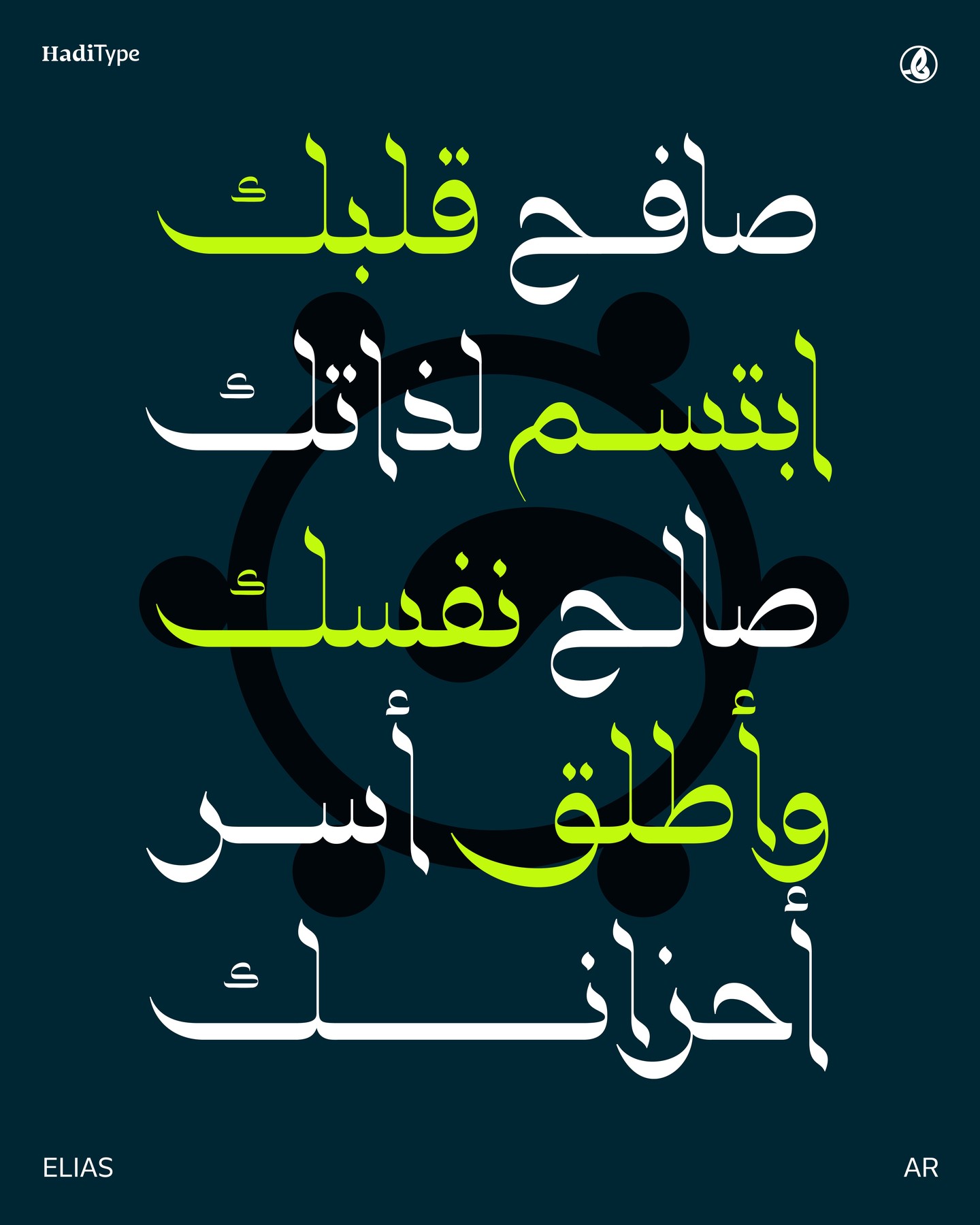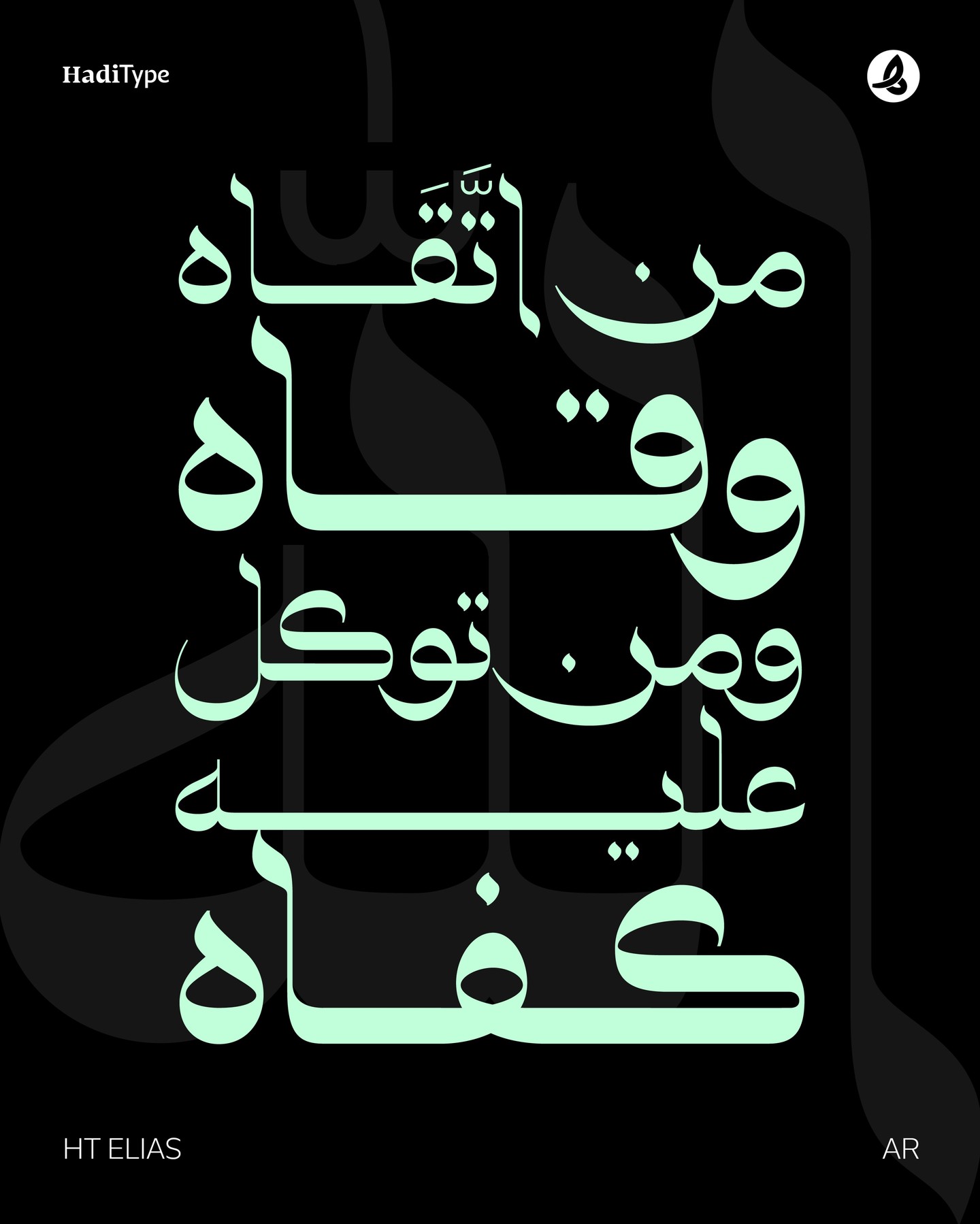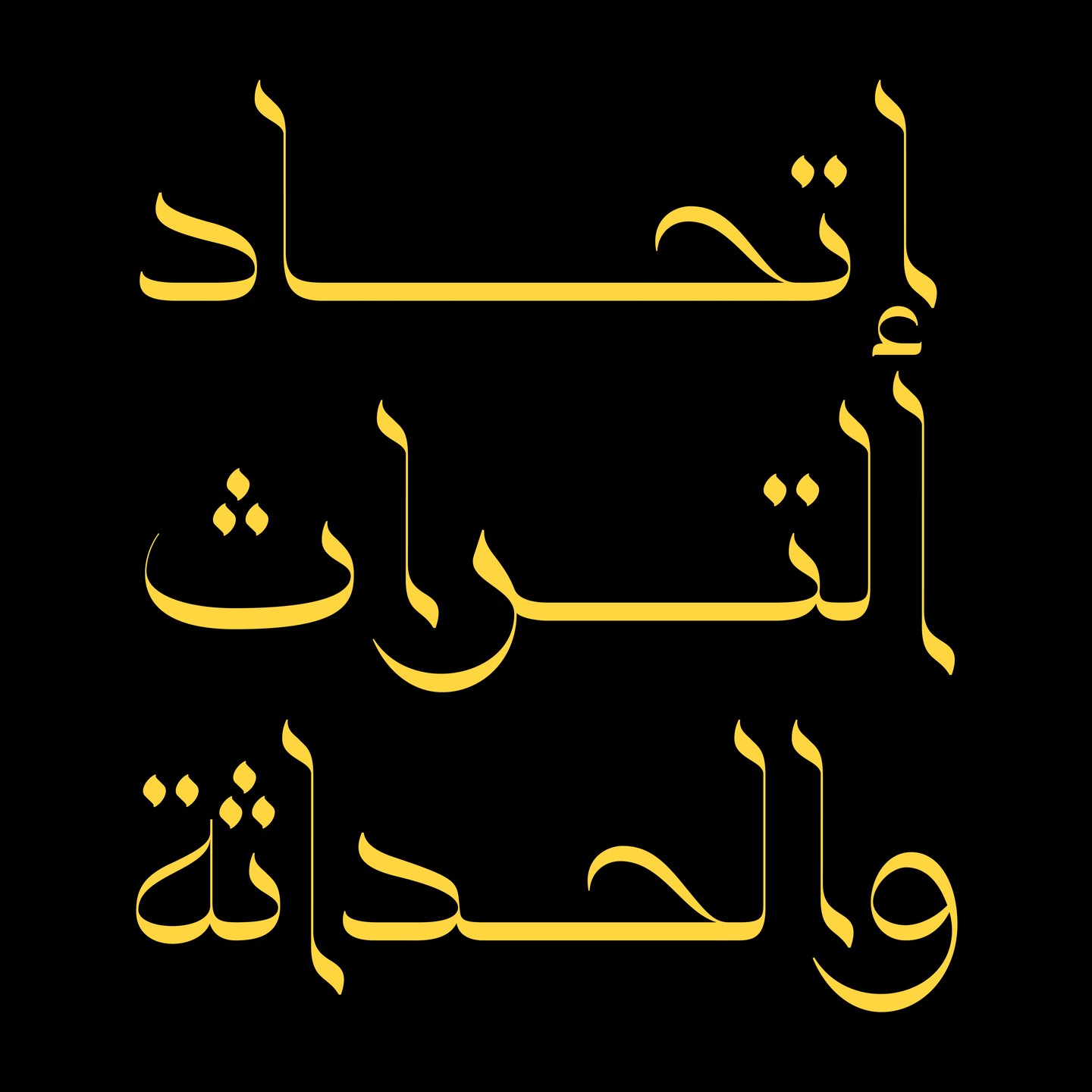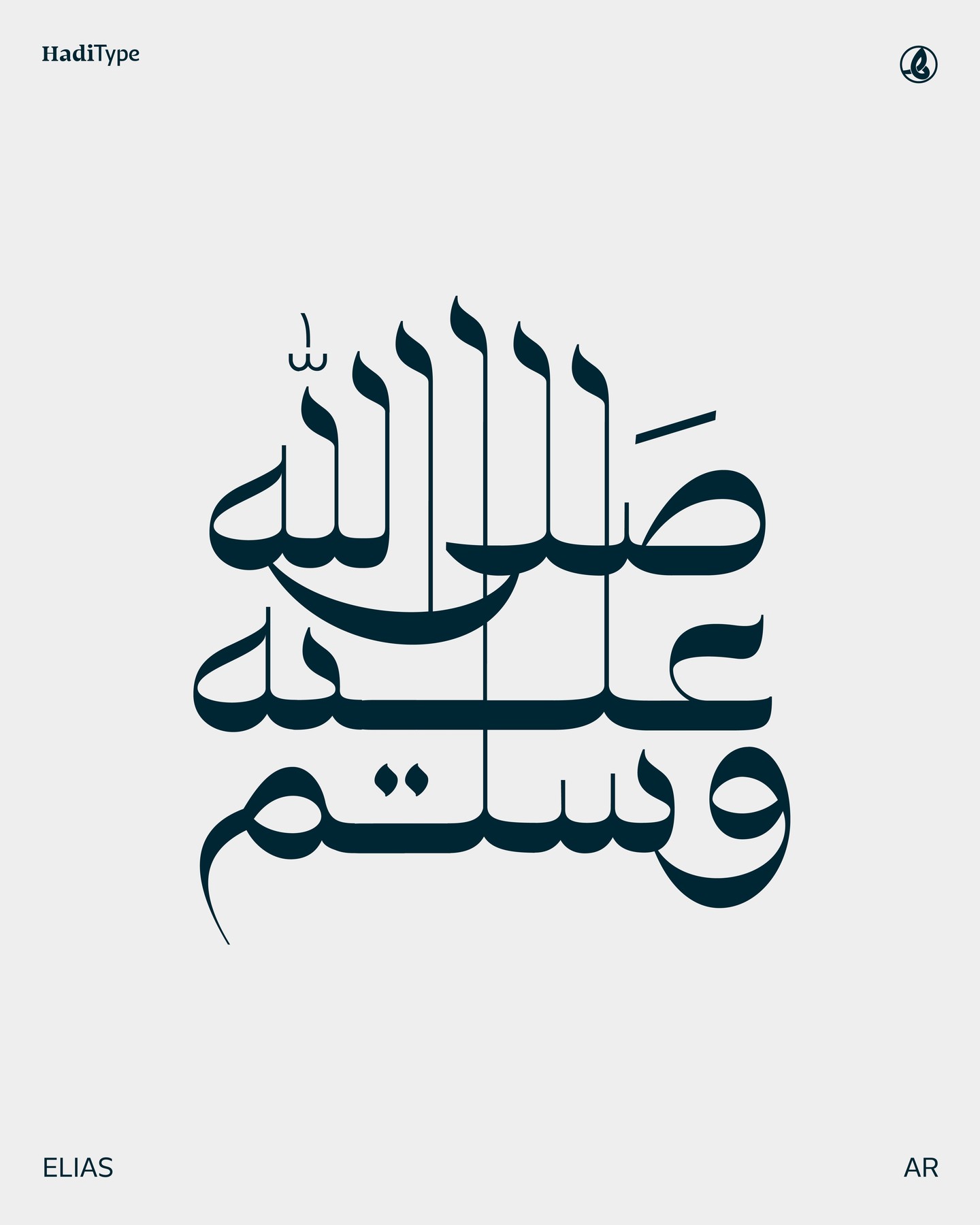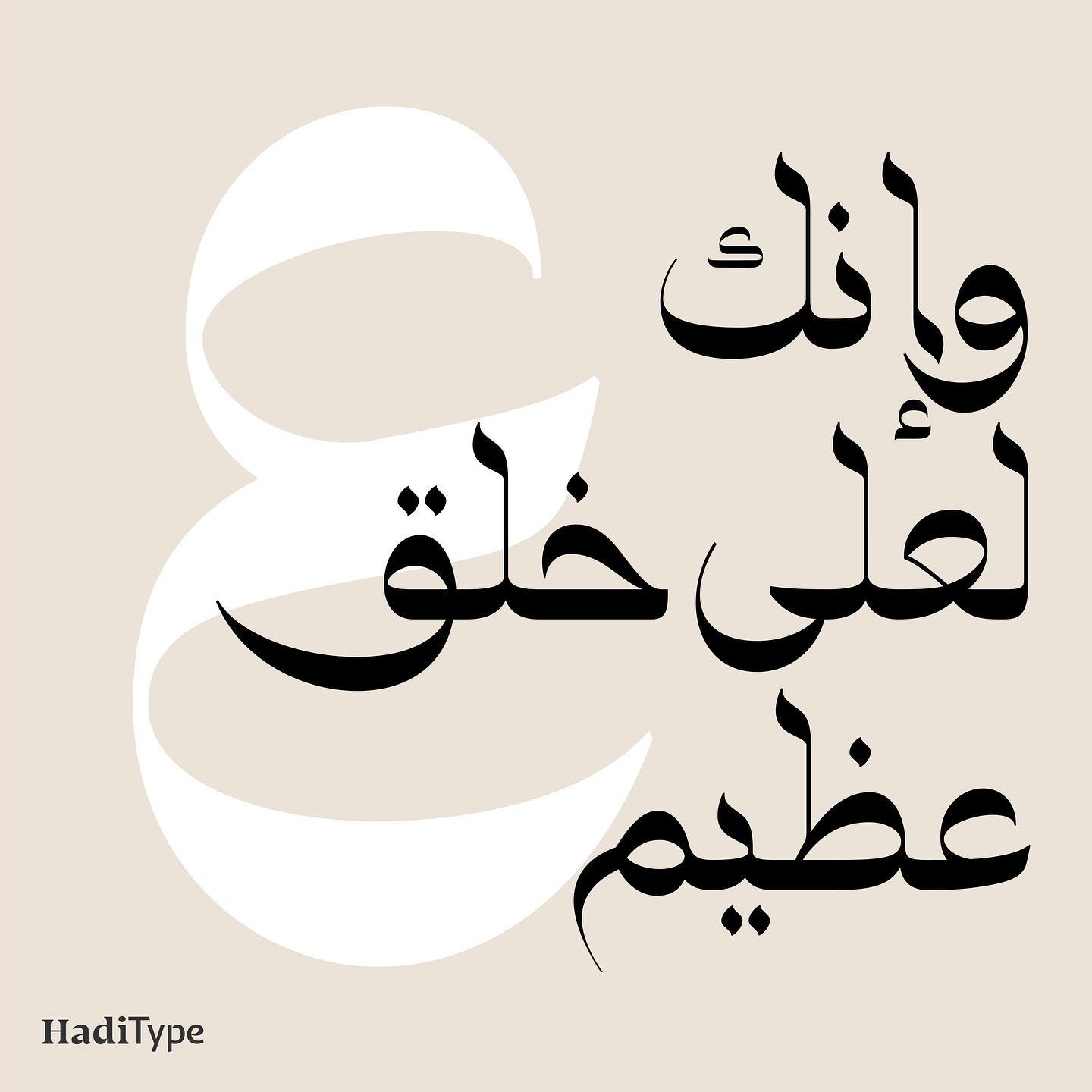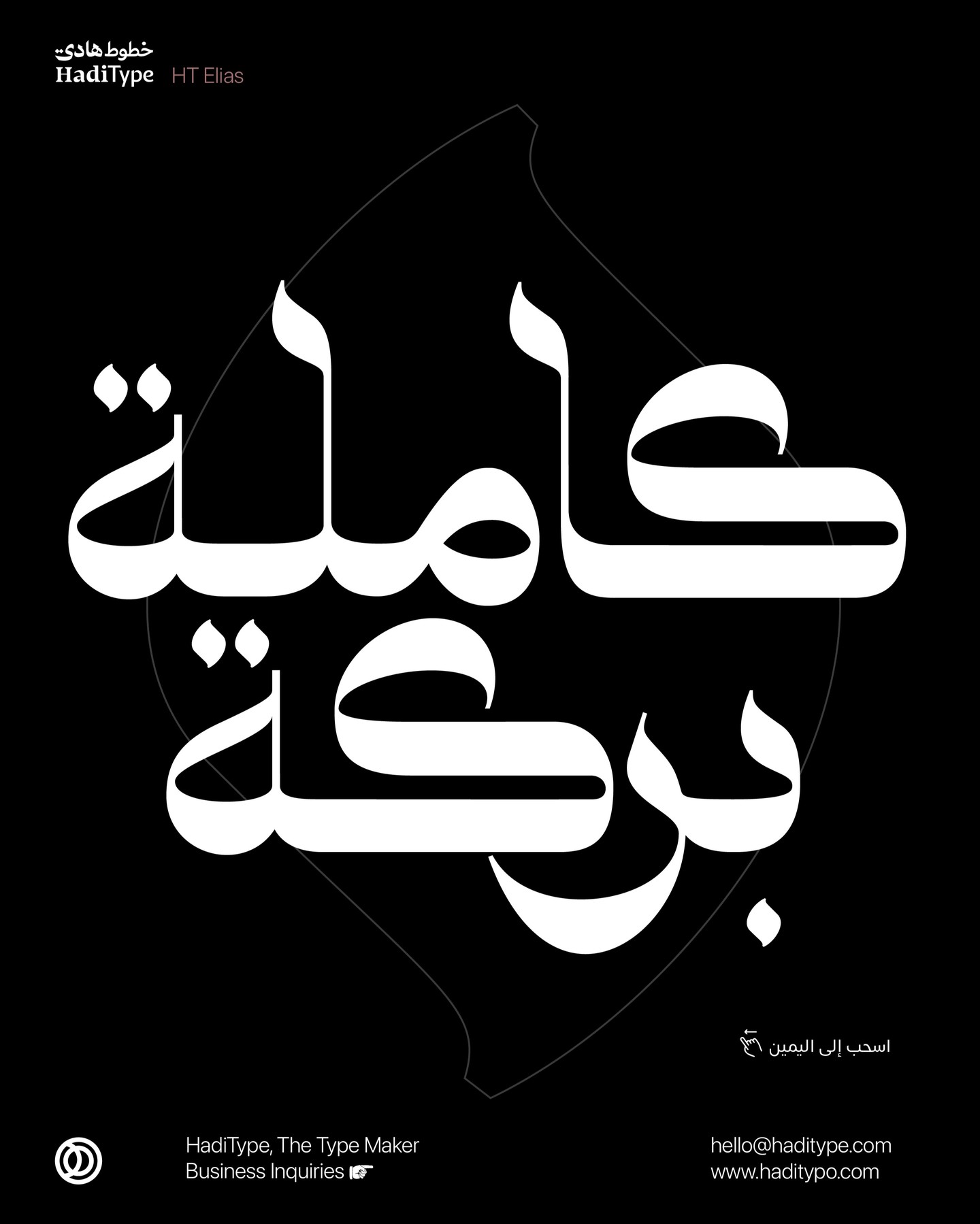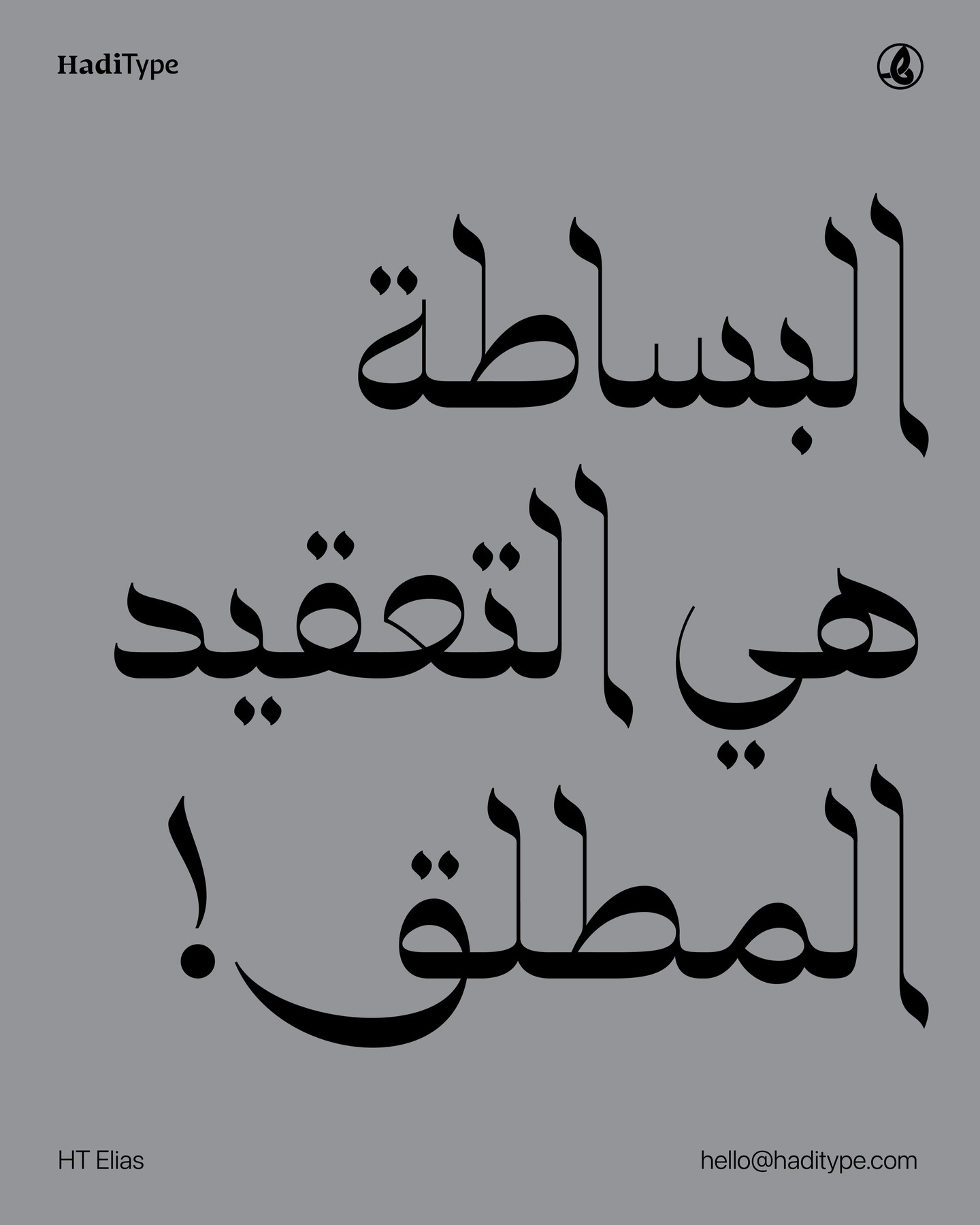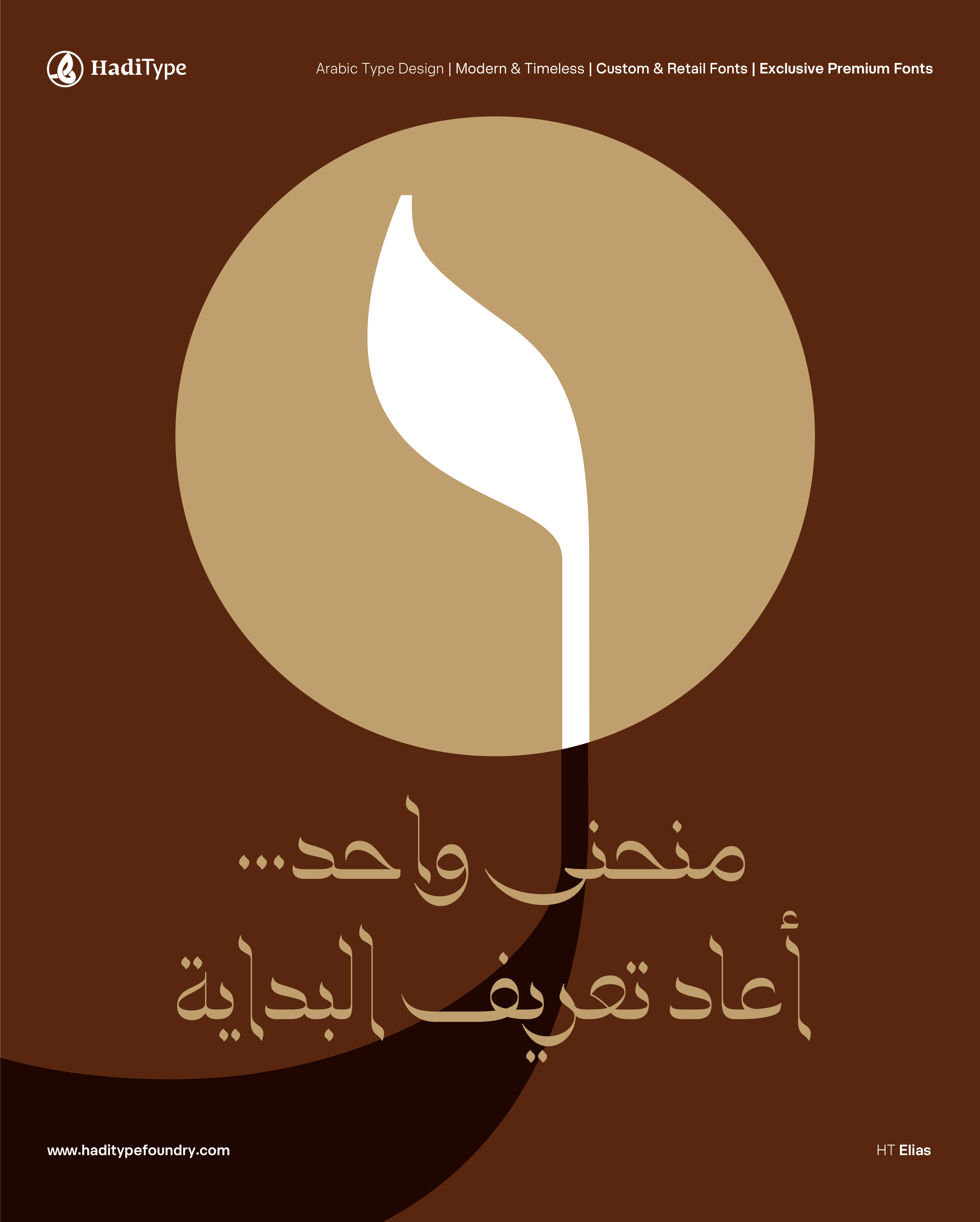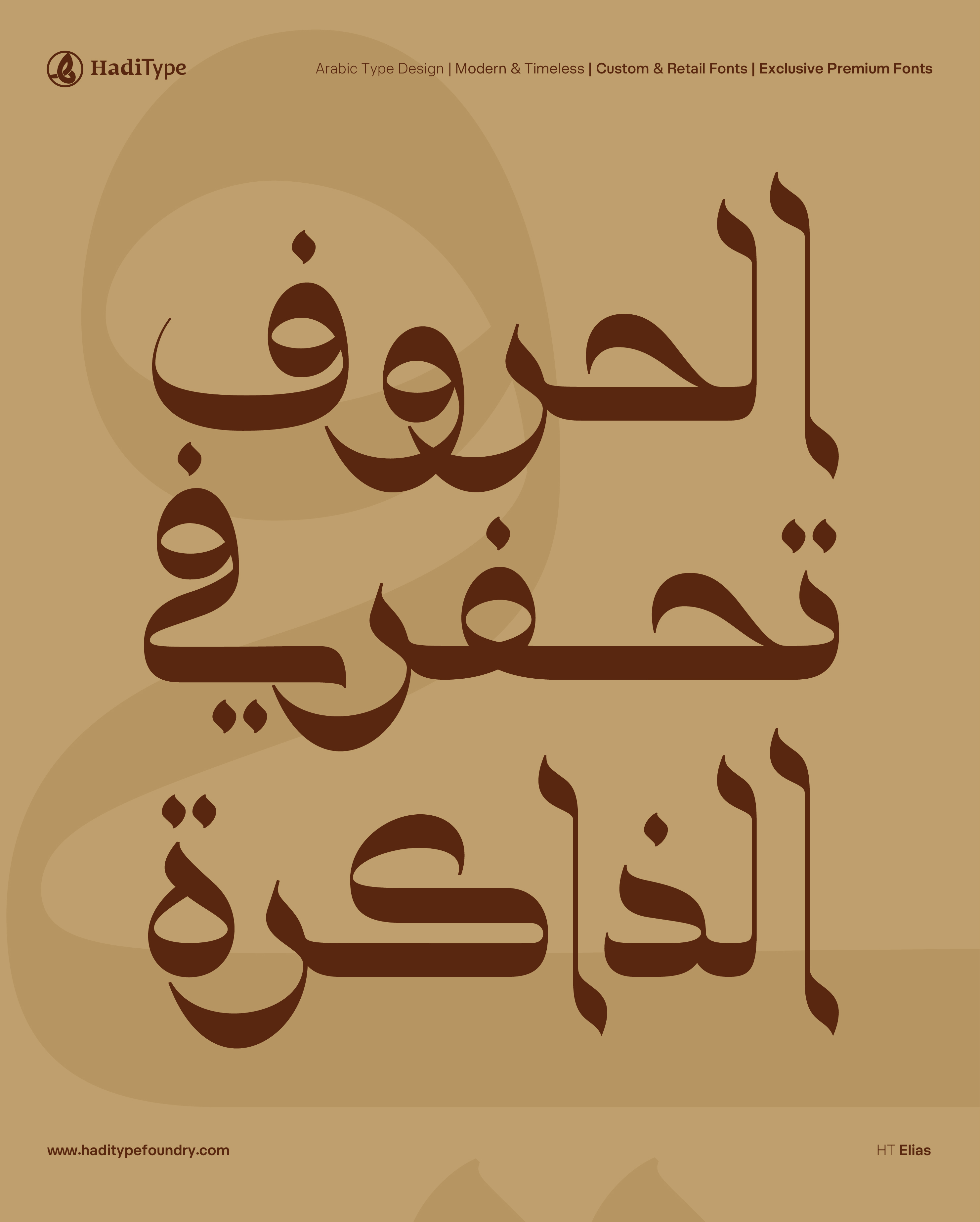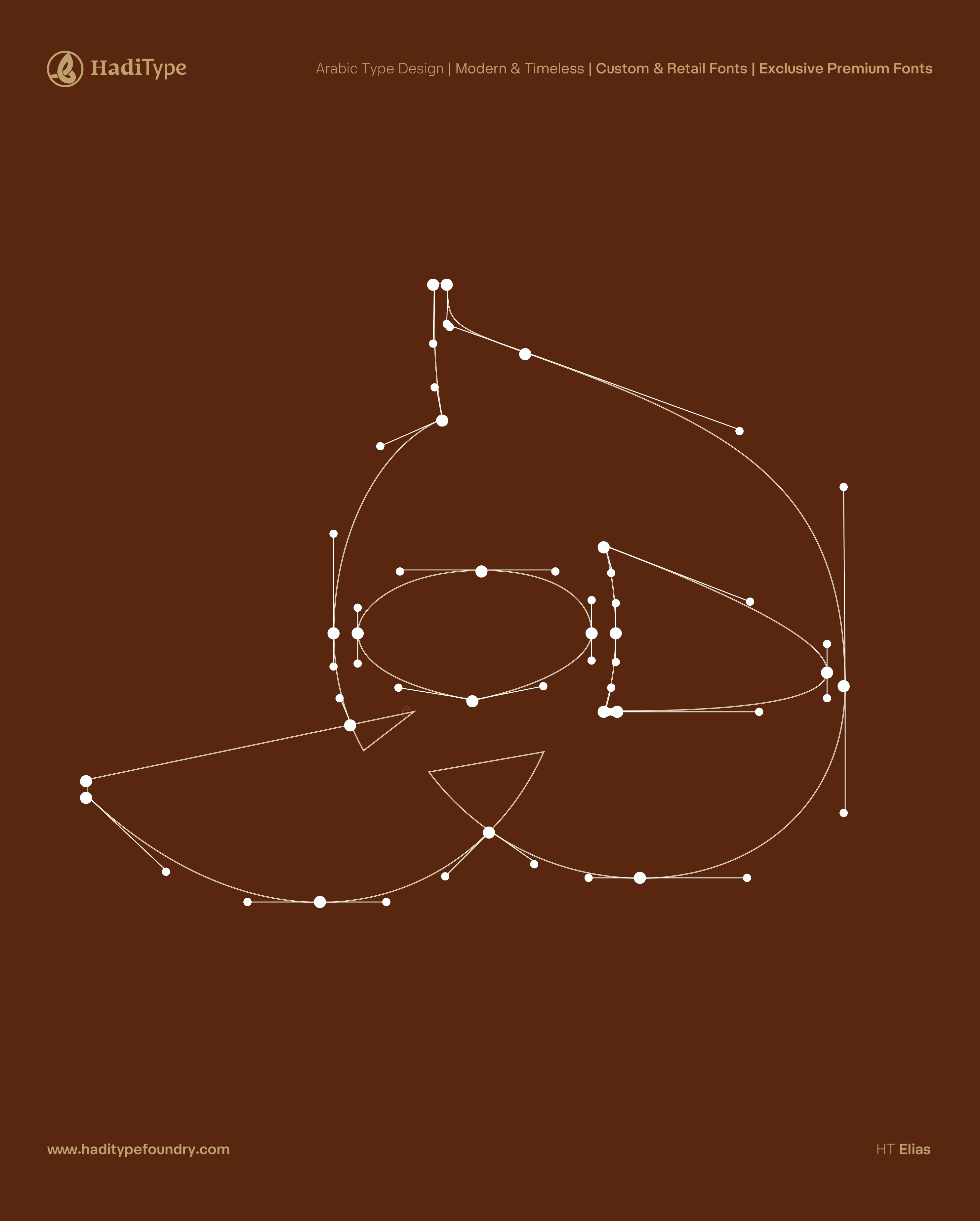
HT Elias
الحروف الهامسة... تصنع أثرًا لا يُرى
الانحناءة الصغيرة... بداية الحكاية
إلياس — حيث يلتقي الكوفي بالحداثة
كلّ عنوانٍ يحتاج حضورًا
الحرف القويّ... لا يُنسى
من الكوفي النيسابوري إلى الشاشات الحديثة
Elegant and confident, HT Elias is a bold Arabic display typeface by Hadi Type Foundry, blending heritage with modern precision.Inspired by the Nishabouri Kufic manuscript, it revives the sharp vertical rhythm and strong geometric balance of that early calligraphic style.Designed for impactful headlines, posters, and brand identities, Elyas reduces excessive white space to form compact, architectural word blocks. Through reversed contrast, most of the weight shifts to the upper and lower tarwees, creating a distinctive rhythm that feels sculpted rather than written.Available in six weights — from Thin to Heavy — offering flexibility across expressive display settings and refined typographic compositions.HT Elyas — Where Kufic heritage meets contemporary clarity.
Styles Info:
6 Weights: Thin • ExtraLight • Regular • Bold • Heavy
Each weight has been meticulously tuned for optical balance and rhythm across different visual scales.
More Features:
• Reversed contrast structure
• Compact display spacing
• Kufic-inspired geometry
• Supports Arabic, Persian, Urdu
• OpenType ligatures and stylistic alternates
• Six weight family for flexible editorial design